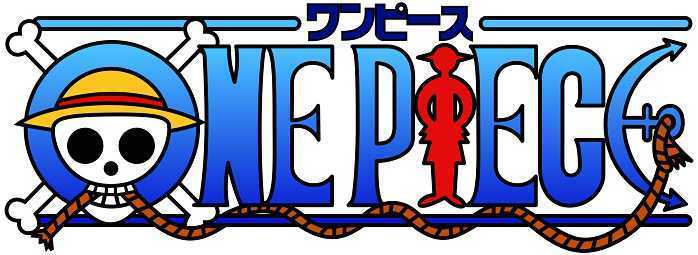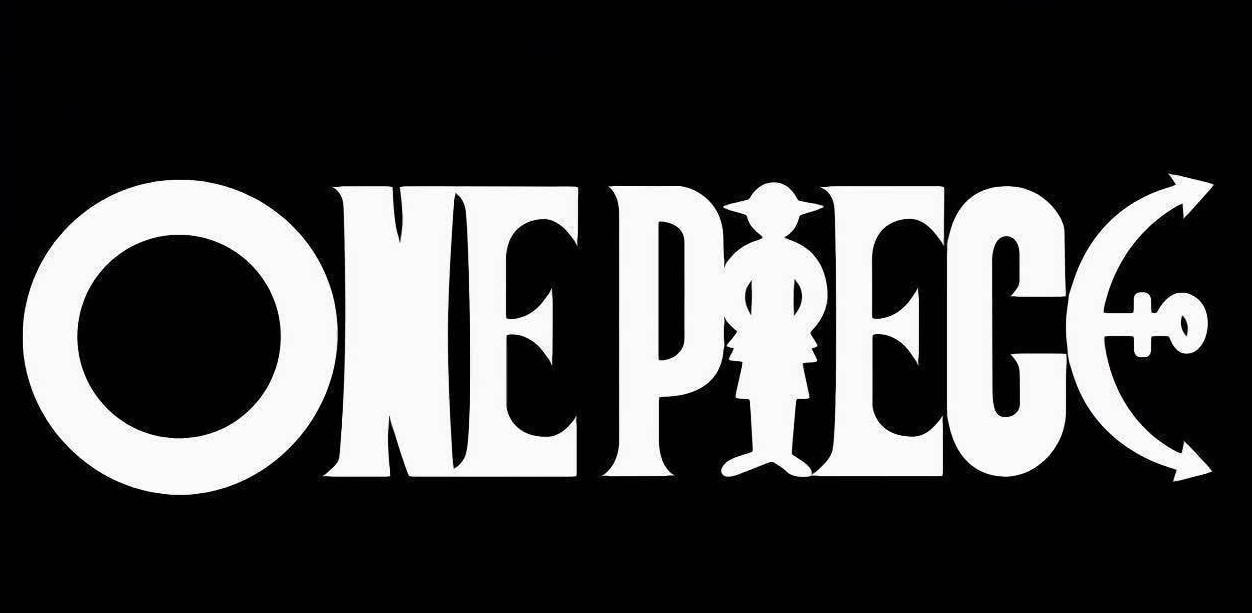
One Piece Font
One Piece Font is the most utilized fonts in the posters with a fashionable, and cutting-edge appearance. TIt is also used in tattoo designing. This typeface is also known as bleach font. It’s far just like neither strictly geometric in stock; its sorts are created in order that every man and the female person is fast and without difficulty diagnosed.
It’s designed to make the complete customers are without trouble making use of it. The selection of the appropriate font bureaucracy is as large as inclusive of haymaker font or a character intelligently to a layout. One Piece Font Free It has a classical, near noble look and is fantastic for developing enforcing headlines, along with a hint of class to emblems and introducing sophistication to poster designs. It exists to useful resource you to move obligations off of your regular listing and flow on.
It seems like klasik font can be used as an alphabet tattoo and language supergirls. Download It has blended together an appealing and acquainted that looks powerful in a logo or on shopping for and promoting card, giving them a seam that’s unique. The whole family has a light and beauty which has made it famous for the extra modest scale of the body text in guides and booklets.